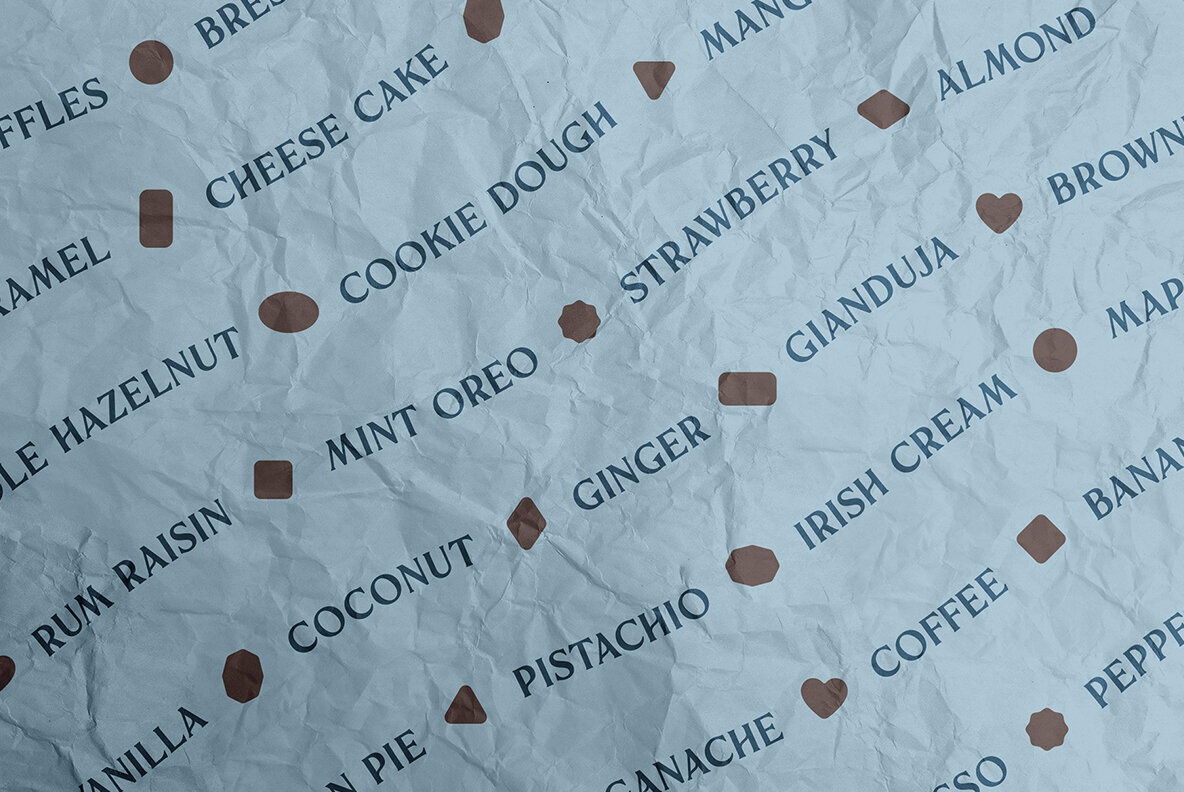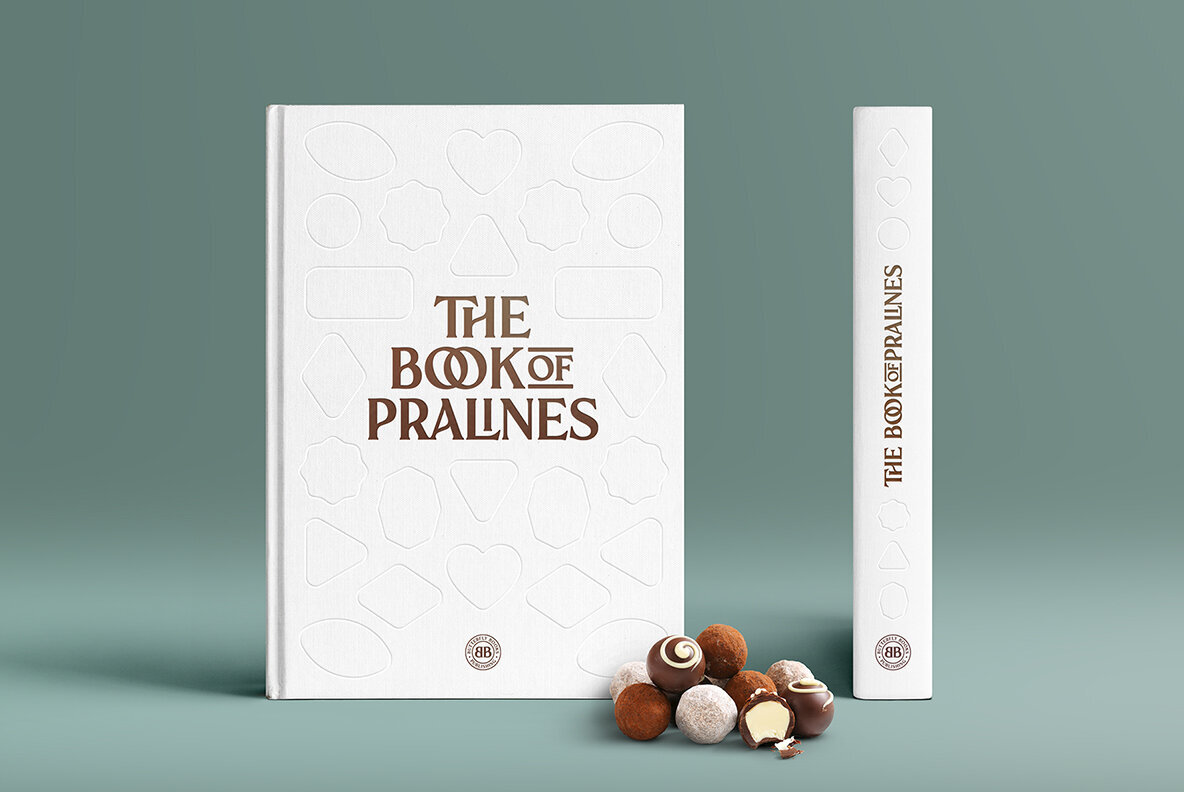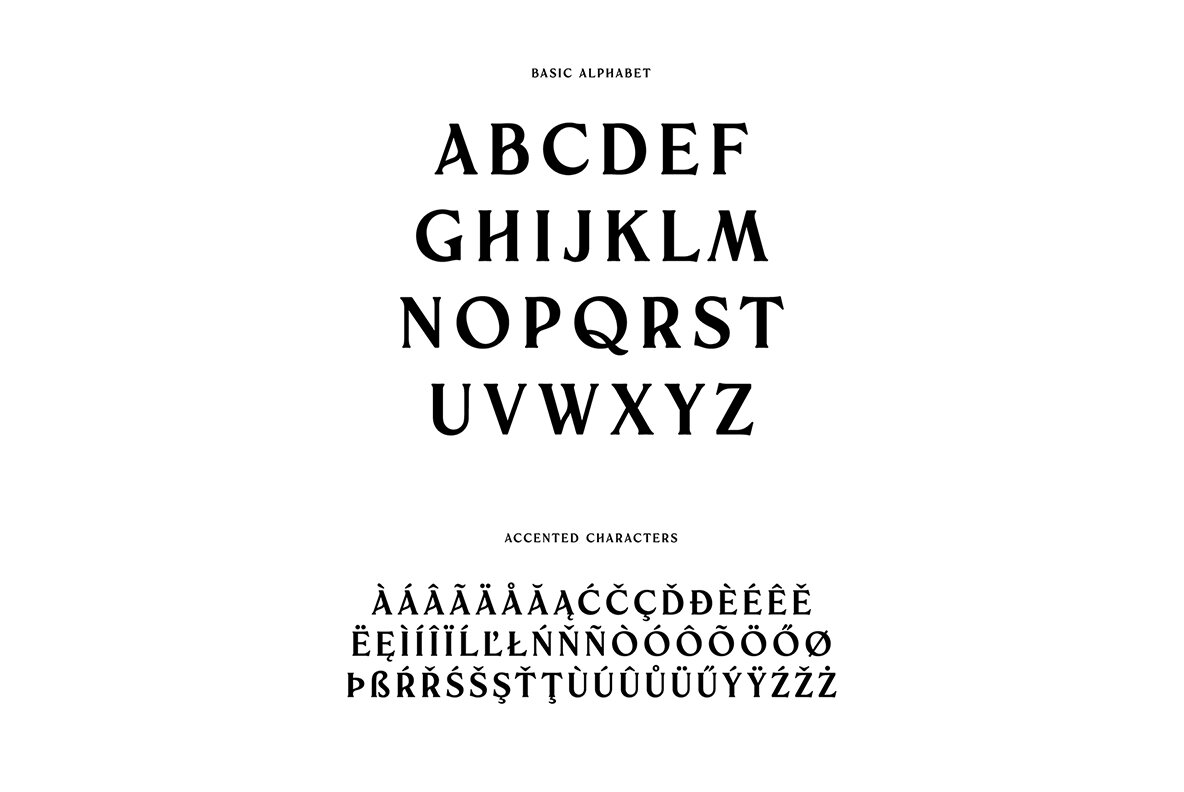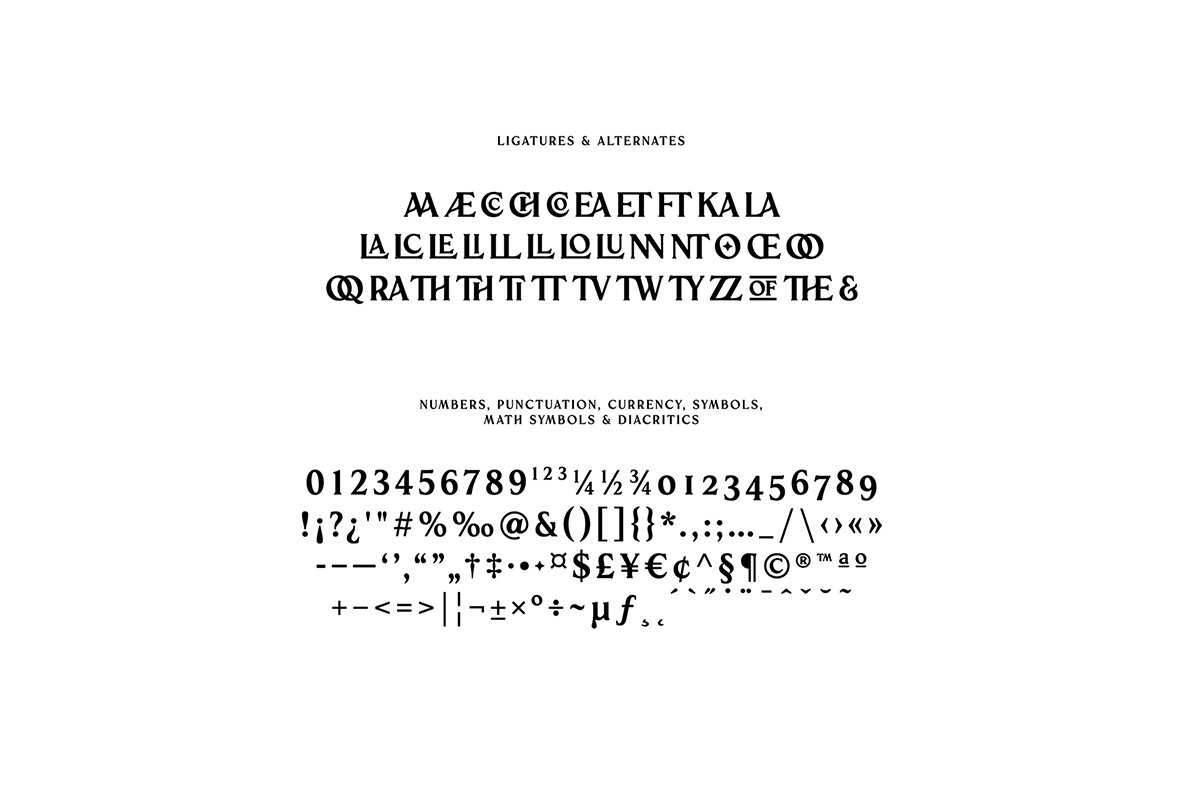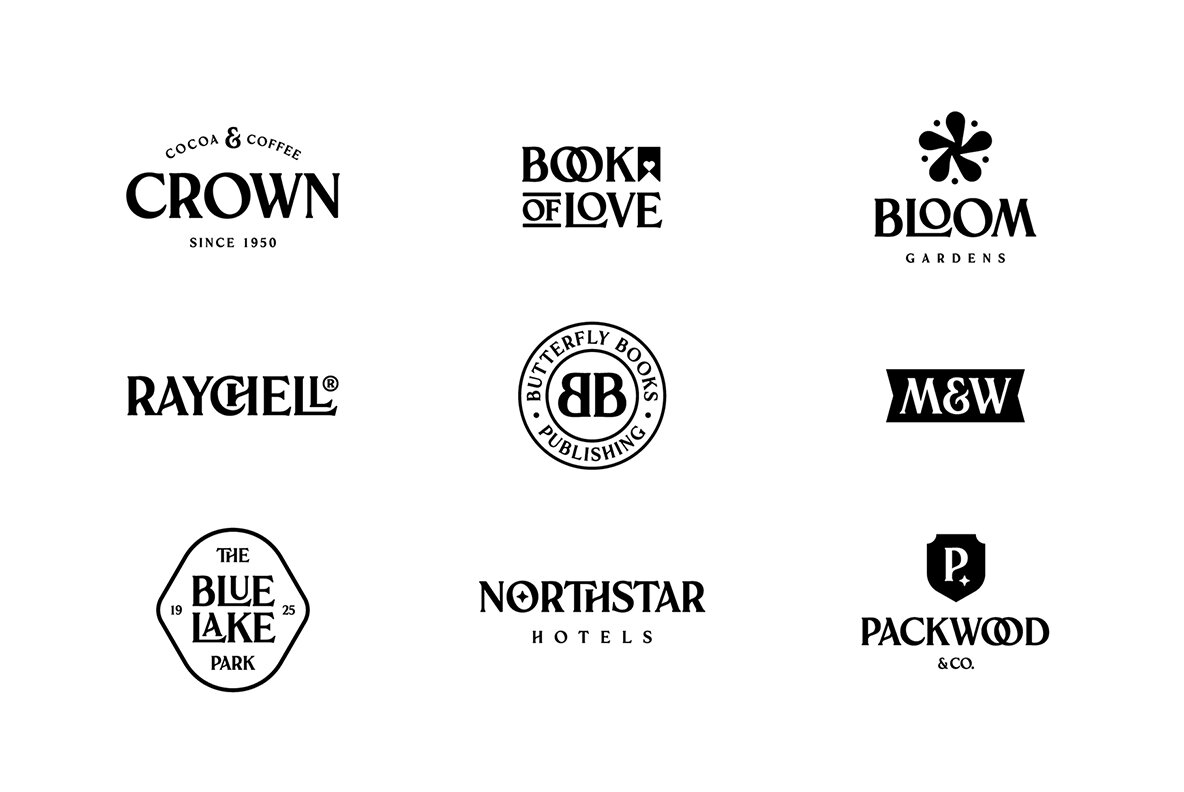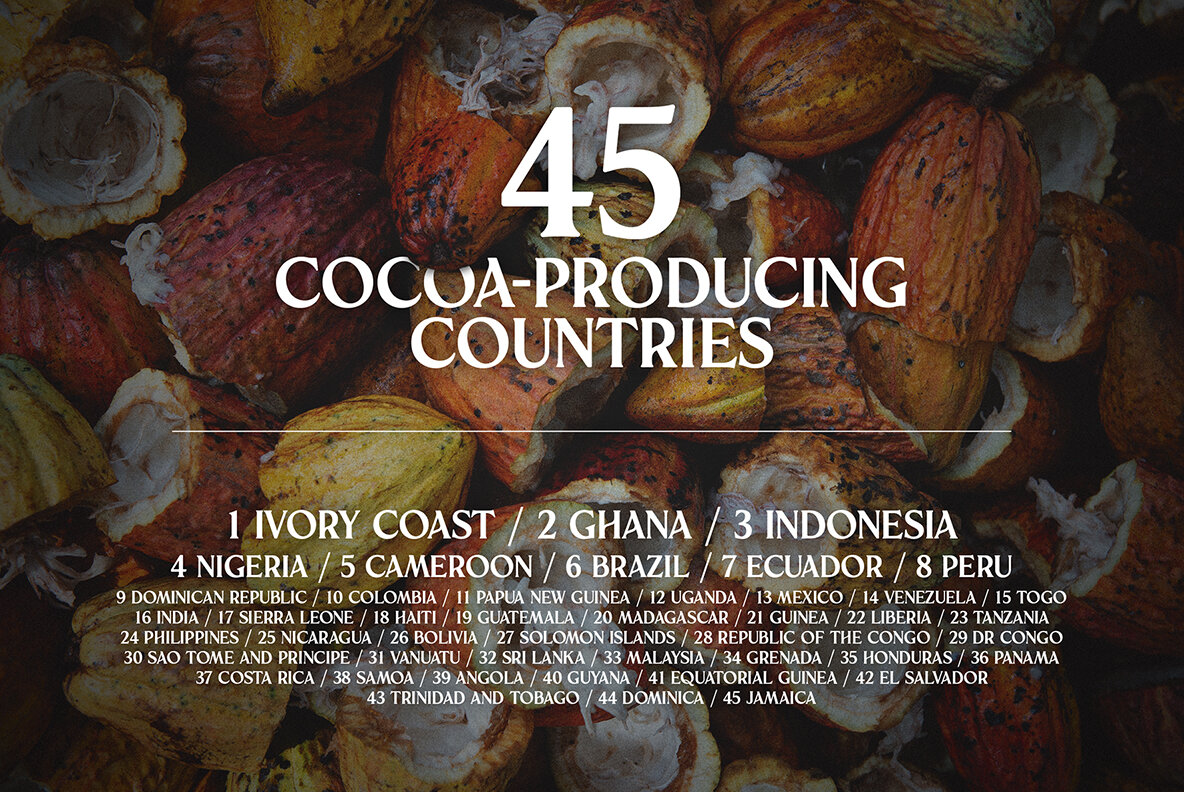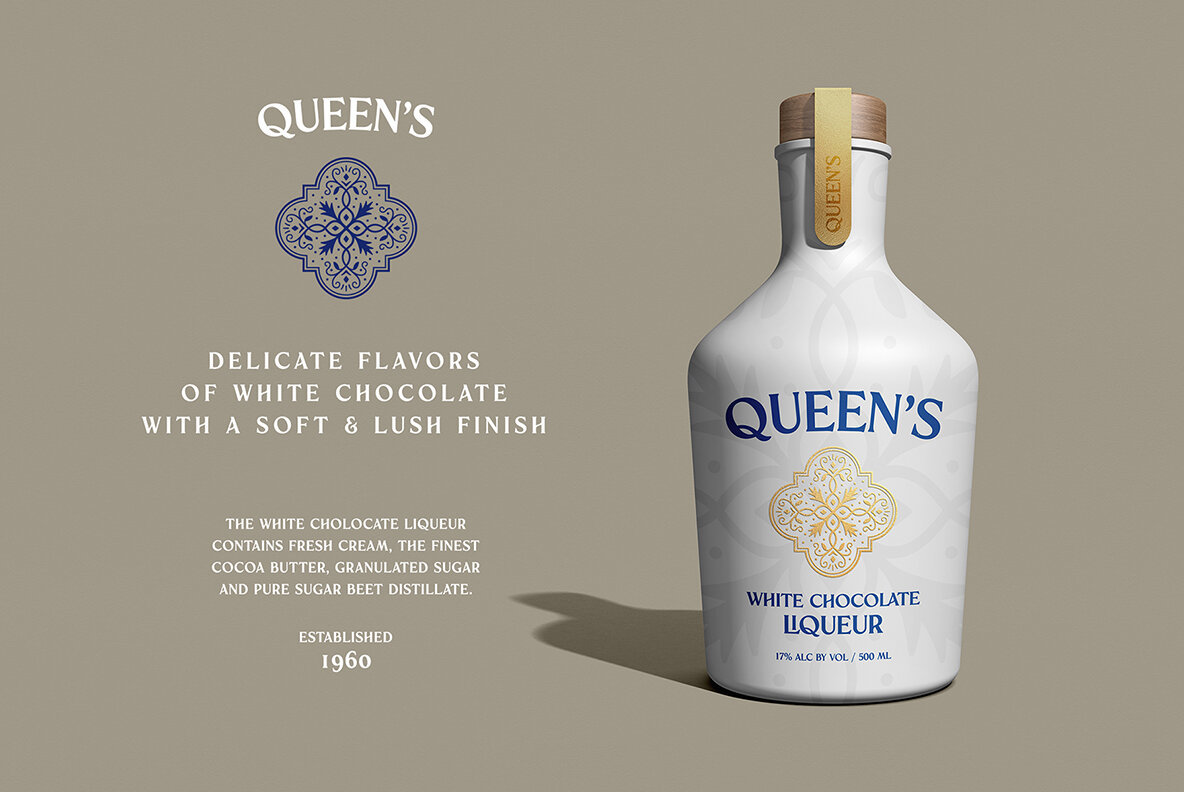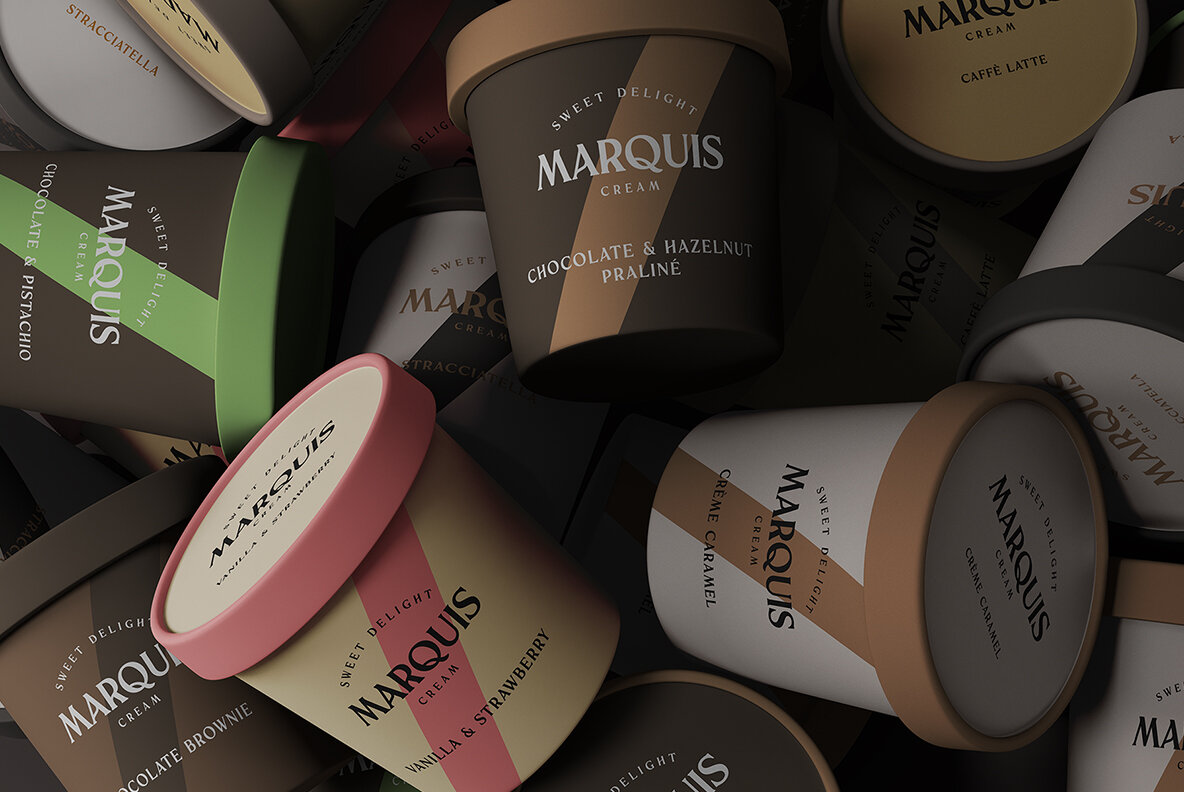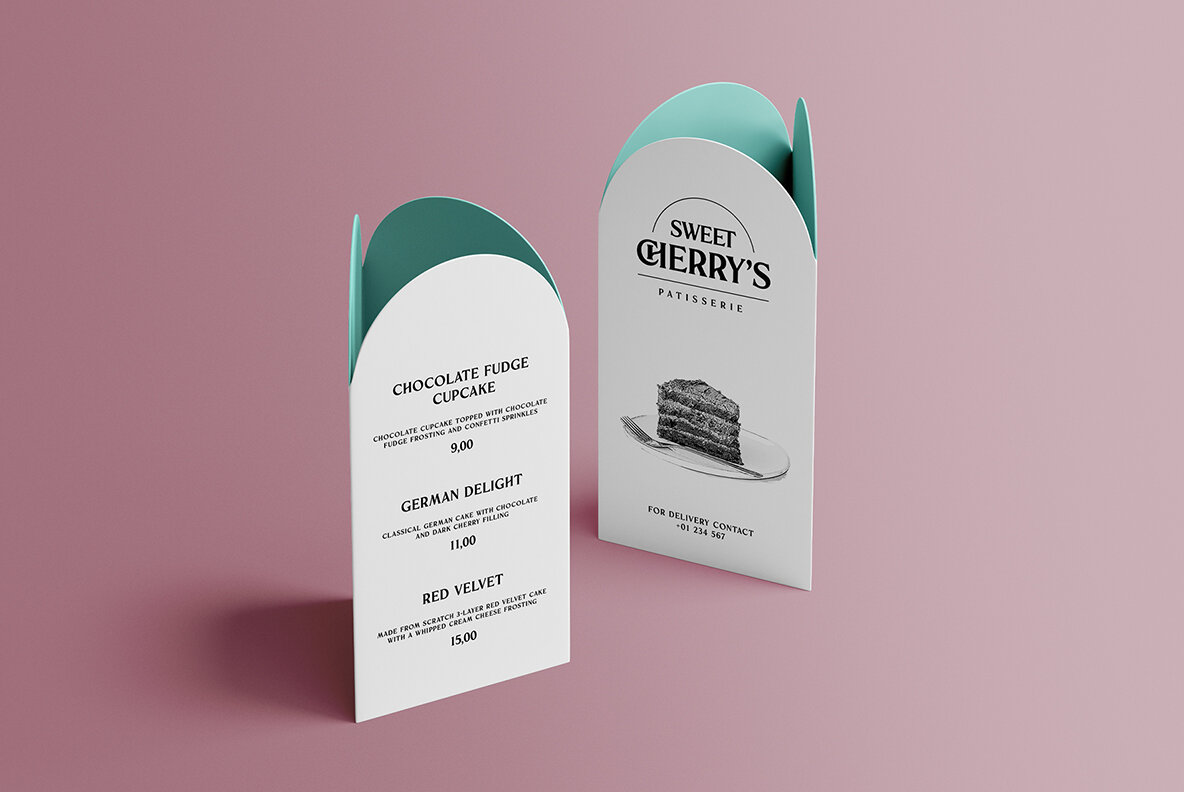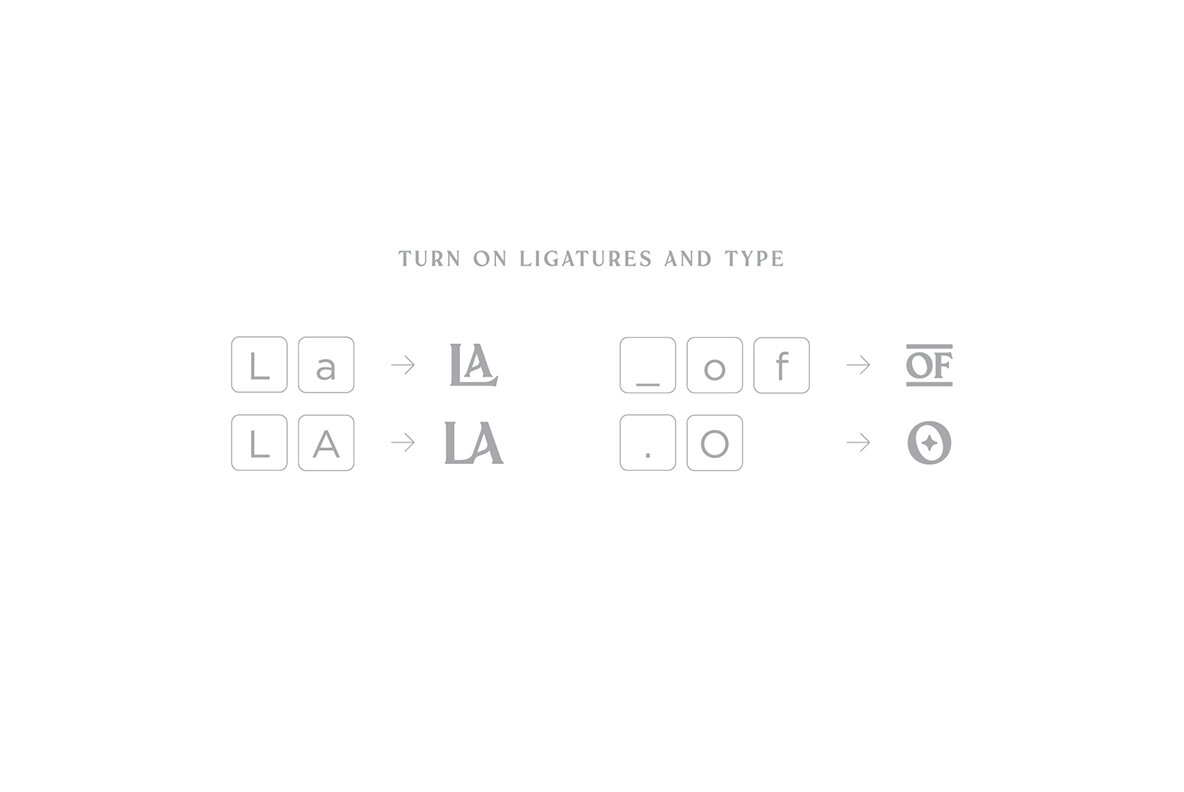
Chocolatier Font
Chocolatier
Introducing Chocolatier, an all-caps display serif typeface with gentle, softened edges that bring a touch of elegance to any design. This captivating font includes ligatures, special alternative glyphs, and old-style figures, making it a versatile choice for various creative projects.
Chocolatier is the perfect choice for headlines, headers, logos, labels, packaging, postcards, presentations, magazines, invitations, and more. Its refined charm and sophisticated style will leave a lasting impression on your audience.
Key features of Chocolatier include:
Basic Latin alphabet A-Z
36 Ligatures & Alternates
56 Accented characters
Numbers, Punctuation, Currency, Symbols, Math symbols & Diacritics
Old-style figures